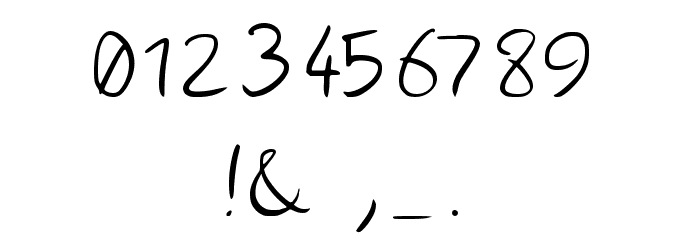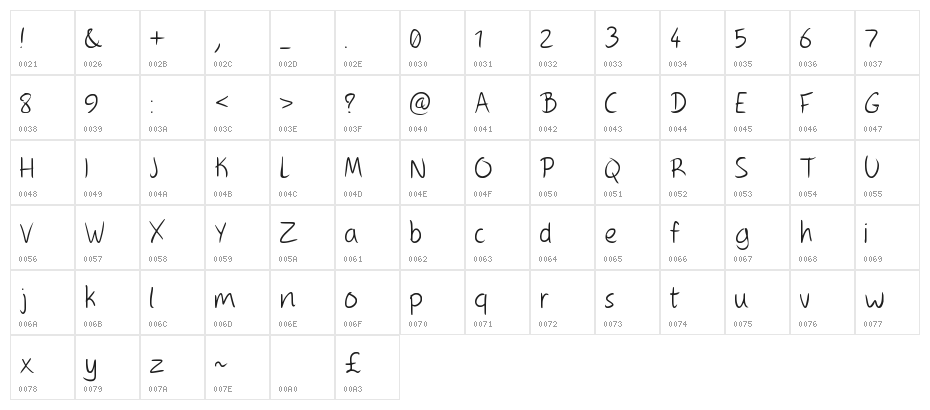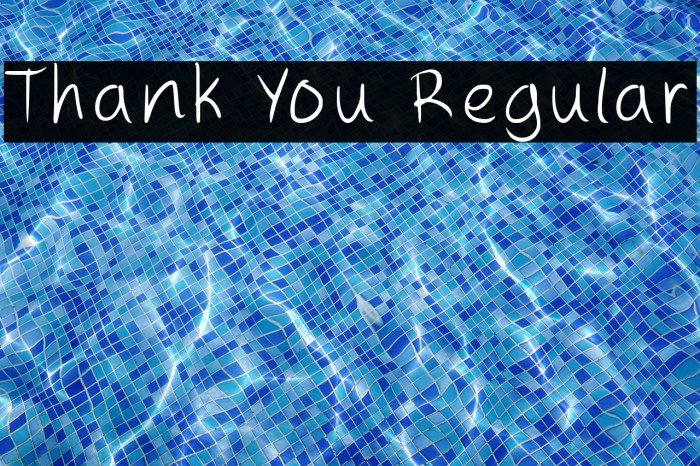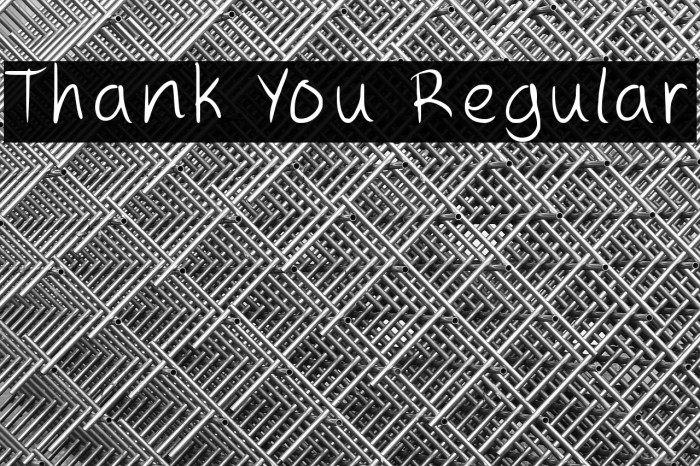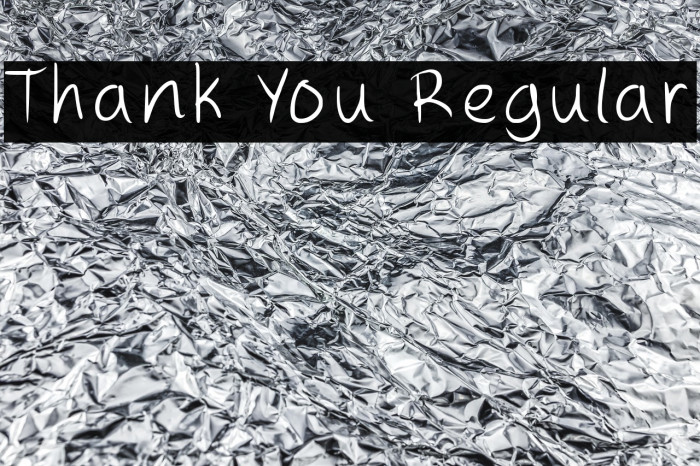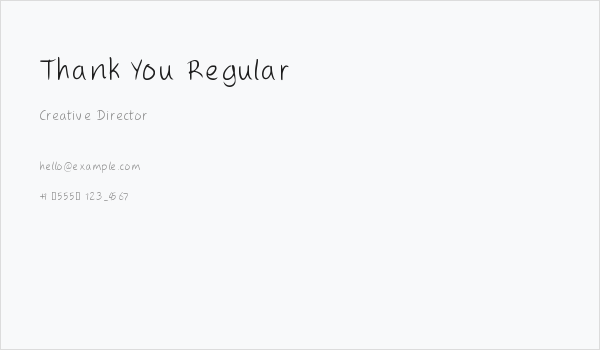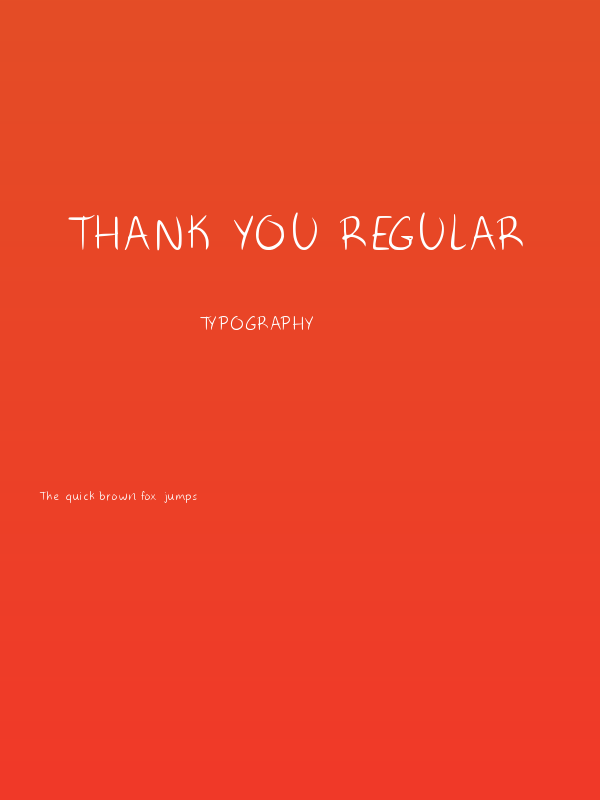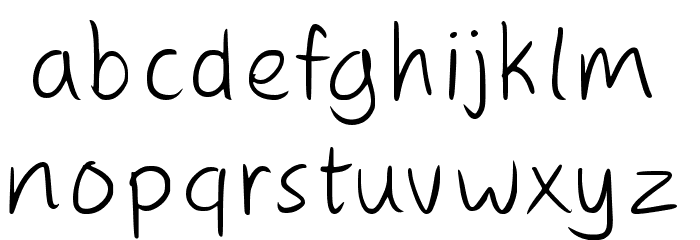
Thank You Regular Font
Thank You Regular Description
This font features a playful and casual handwritten style, characterized by its smooth, flowing lines and slightly irregular shapes. The letters have a natural, organic feel, with varying stroke widths that add a touch of whimsy and personality. The uppercase and lowercase letters are well-balanced, maintaining a consistent height and width that ensures readability. The numerals and special characters complement the overall style, making it versatile for various design applications. Its informal and friendly appearance makes it suitable for projects that require a personal touch.